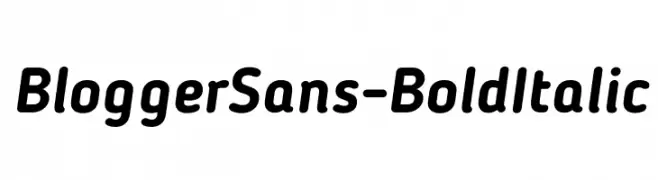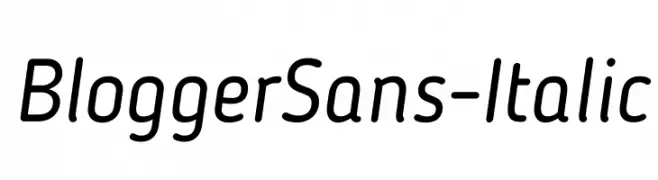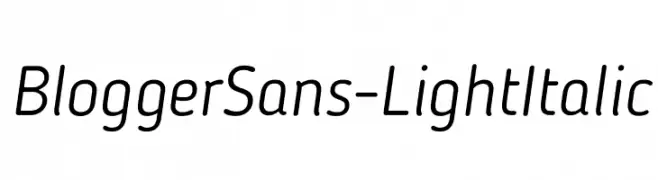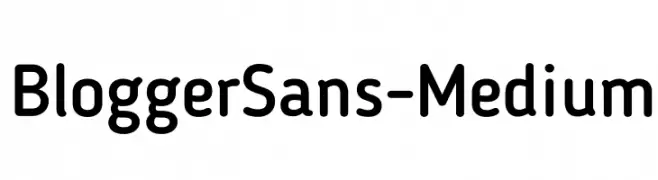
A modern sans-serif font with rounded edges and uniform strokes.
A bold, rounded sans-serif font with a modern and friendly appearance.
A bold, italic sans-serif font with smooth, rounded edges and a modern look.
A modern, italic sans-serif font with clean lines and excellent readability.
A clean, modern sans-serif font with a light weight and rounded edges.
A sleek, modern, light italic sans-serif typeface with smooth curves.
A modern, rounded sans-serif font with medium weight and excellent readability.
A modern, italic sans-serif font with medium weight and rounded edges.
A modern, rounded sans-serif font with uniform strokes and geometric influences.
A bold, rounded sans-serif font with a modern and friendly appearance.
A bold, italic sans-serif font with smooth, rounded edges and a modern look.
A modern, italicized font with clean, rounded characters and a friendly aesthetic.
A modern, light sans-serif font with rounded edges and balanced spacing.
A modern, italicized sans-serif font with clean lines and balanced spacing.
A modern, rounded sans-serif font with medium weight and excellent readability.
A modern, medium-weight sans-serif font with a slight italic slant and rounded edges.